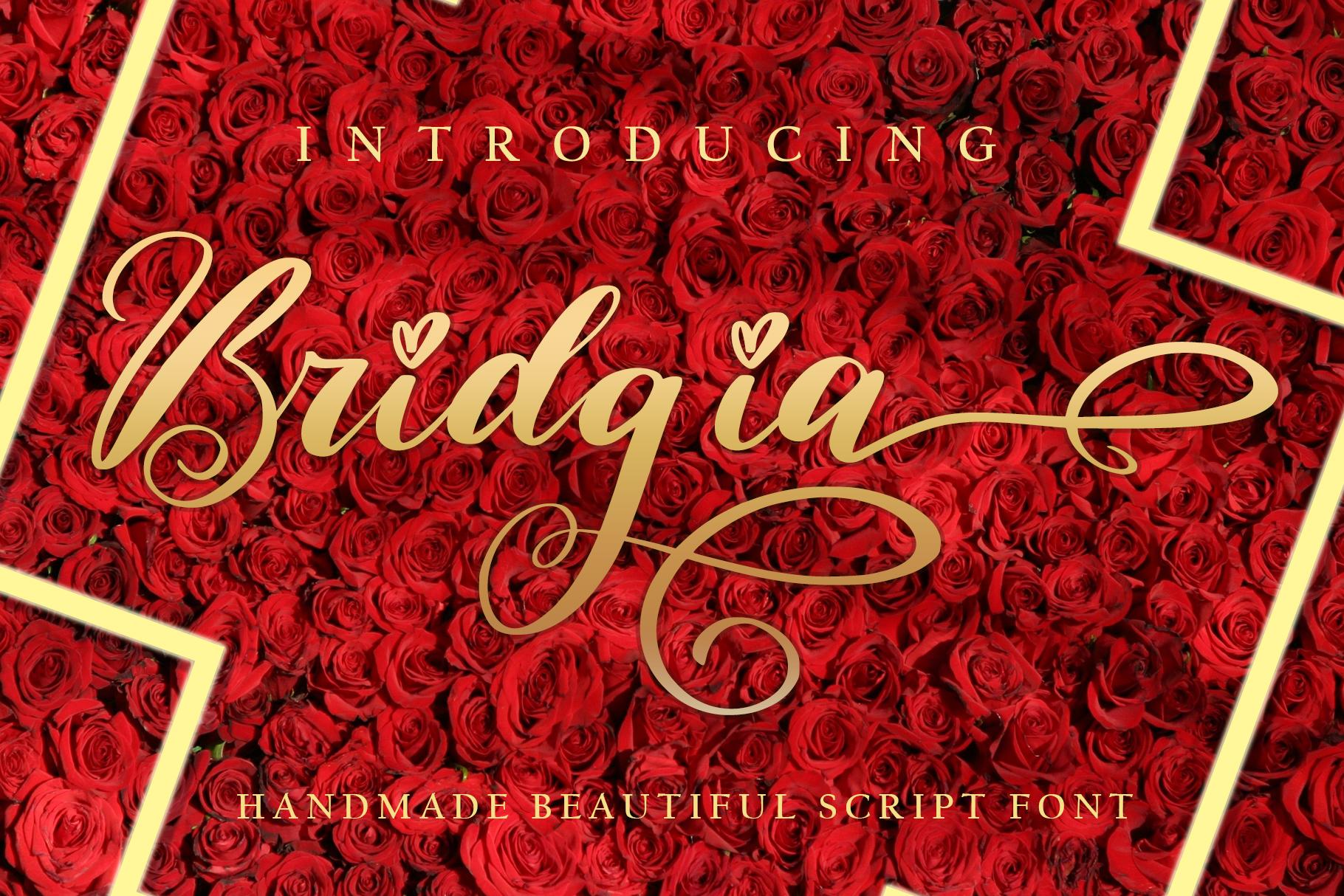
Bridgia Font Description
Bridgia is a delicate, elegant, and flowing handwritten font. It has beautiful and well-balanced characters and as a result, it matches a wide pool of designs. Add it to your most creative ideas and notice how it makes them come alive! This font is PUA encoded which means you can access all of the glyphs and swashes with ease!